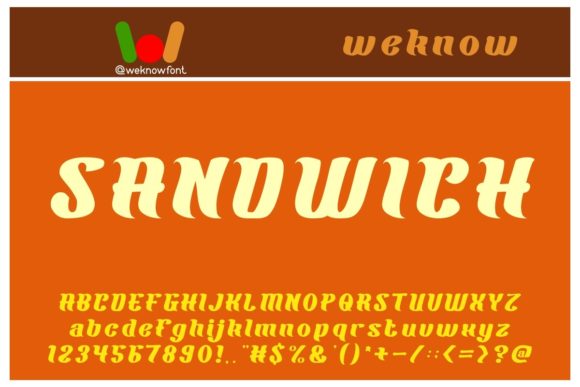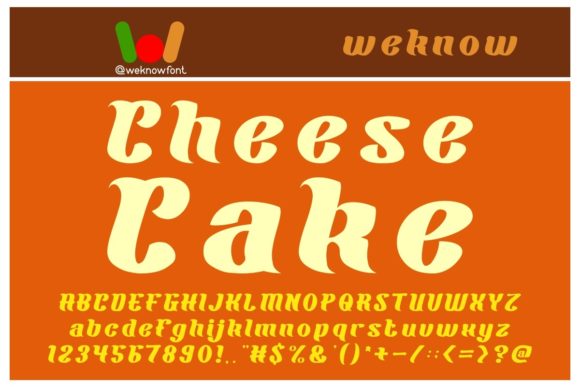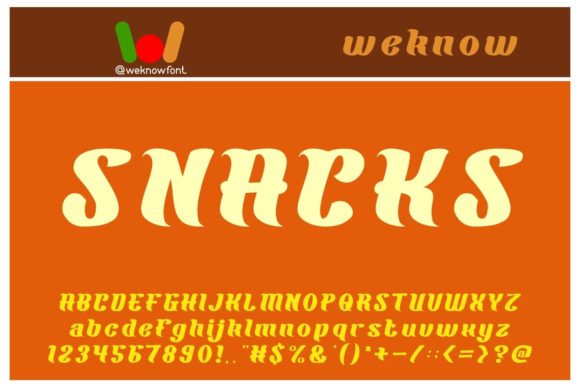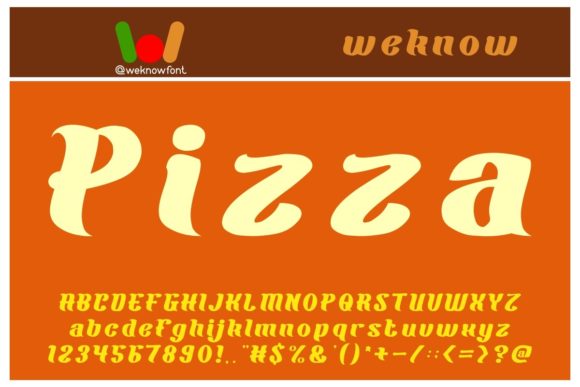
When Creativity Strikes
Have you ever been in the middle of a brainstorming session, pouring over ideas, and suddenly a spark of inspiration hits? That’s exactly what happened for designers looking for the perfect font to capture attention and convey boldness. Big Burger Font, a cool and thick lettered display font, is the result of that creative spark.
Big Burger Font is designed to make a statement, whether it’s for logos, headline font, or corporate identity. Its thick lines and bold strokes make it perfect for grabbing attention in the apparel industry, on posters, or even in the digital world of YouTube and Instagram. As a valuable tool for designers, Big Burger Font offers endless possibilities for creative expression, making it a must-have in any design project.
Key Features of Big Burger Font
- Font Family: Big Burger Font is a unique, hand-drawn font designed specifically for fast-food and restaurant branding.
- Unique Characteristics: The Big Burger Font features a bold, playful design with rounded edges and a distinctive flair, making it instantly recognizable and memorable.
Big Burger Font Review
Big Burger Font is a bold, playful font that’s perfect for catching attention. I love the energetic vibe it gives off! ✨ The font’s rounded edges and loose connections between letters make it feel friendly and approachable. It’s perfect for fast-food chains, restaurants, or any brand that wants to convey a fun, casual atmosphere. ✨
However, I do have some concerns. The font can feel a bit messy at larger sizes, and the rounded edges can make it difficult to read in certain contexts. ⚠️ Additionally, the font’s loose connections between letters can sometimes make it look like a DIY font, which might not be the impression you want to give. ⚠️
In terms of customization, Big Burger Font offers a range of weights and styles, which is great for designers who want to add some extra flair to their designs. However, the font’s overall feel can be a bit inconsistent across different weights and styles.
Overall, I’d give Big Burger Font 3.5 out of 5 stars. While it’s a great choice for casual, attention-grabbing designs, it might not be the best option for more formal or professional projects.
Pros and Cons:
- ✨ Bold, playful vibe perfect for casual designs
- ✨ Friendly and approachable feel
- ⚠️ Can feel messy at larger sizes
- ⚠️ Loose connections between letters can look DIY
- Consistent feel across different weights and styles can be inconsistent
The Big Burger Font is a bold, eye-catching font that is perfect for restaurant menus, food trucks, and other food-related businesses.
Use it to highlight special deals, promotions, or menu items to grab the attention of your customers.
For the most effective use of the Big Burger Font, use it in combination with bright colors and bold graphics to create a visually appealing design.